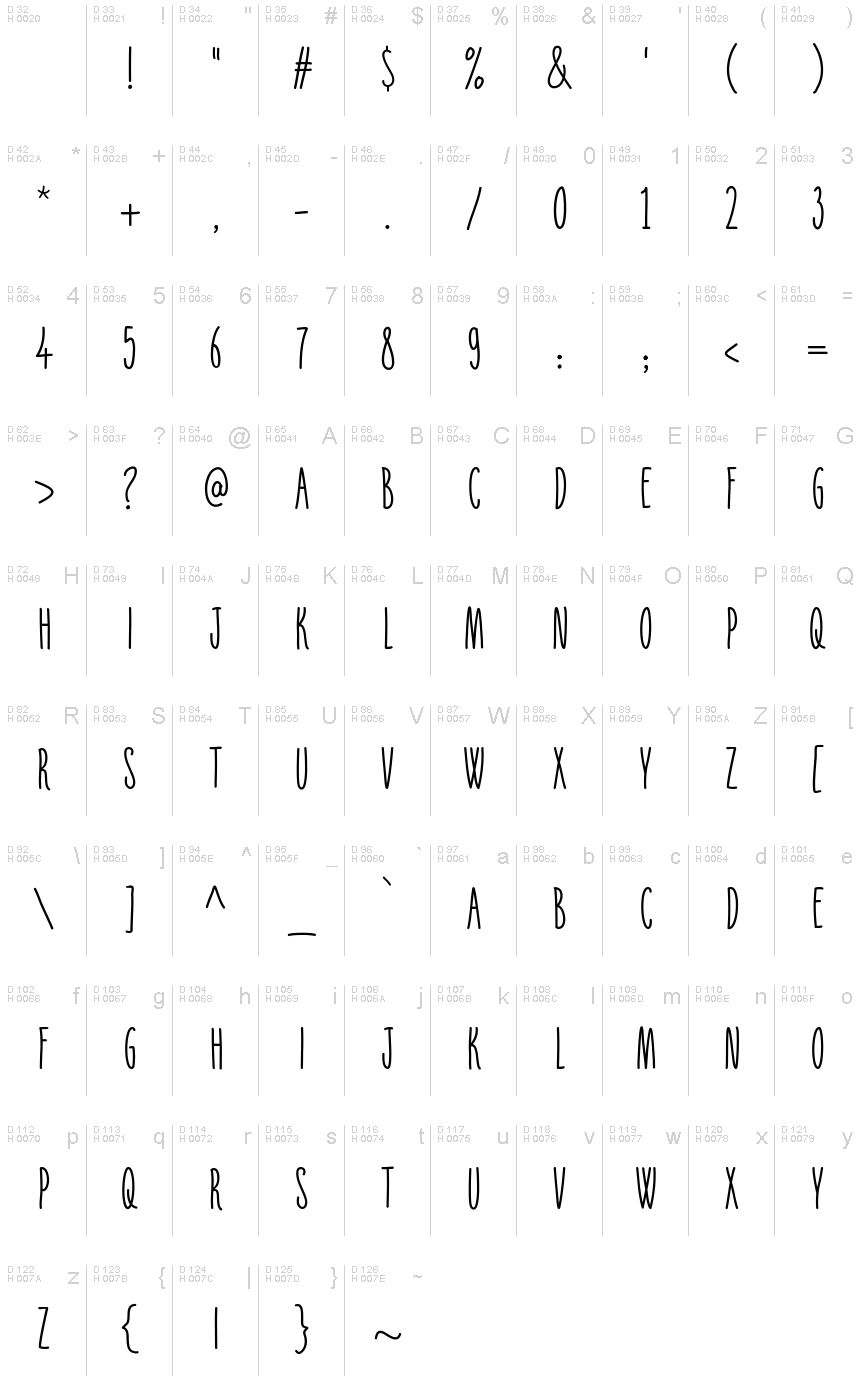
GreekRolls
Greek Rolls is a captivating handwritten font crafted by Only Fonts. Its condensed silhouette and expressive strokes exude a sense of dynamic elegance, effortlessly blending tradition and modernity. The font's numerous ligatures add a touch of playfulness, allowing designers to create designs that truly stand out. Whether you opt for the refined lowercase variant or embrace the bold uppercase iterations, Greek Rolls consistently delivers a visually compelling aesthetic.
This versatile font lends itself to a wide range of design applications, from elegant branding and packaging to attention-grabbing editorial layouts. Its unique character and inherent versatility make Greek Rolls an excellent choice for projects seeking to convey a sense of artisanal charm, Mediterranean flair, or a touch of contemporary refinement. Designers can leverage the font's distinct personality to craft captivating headlines, impactful logotypes, and eye-catching typographic compositions that leave a lasting impression.